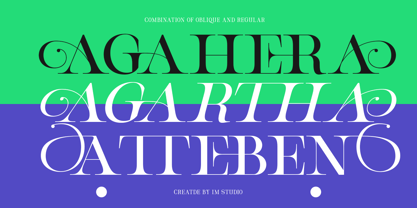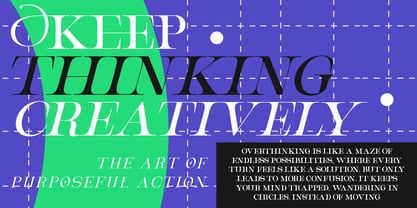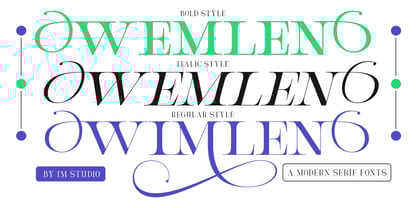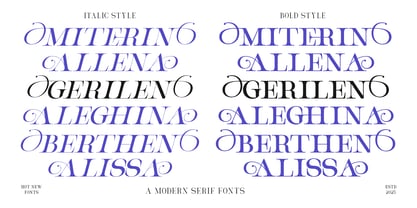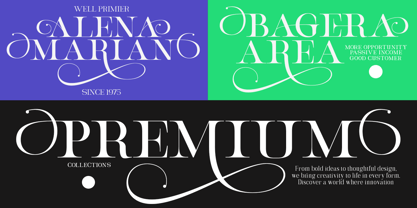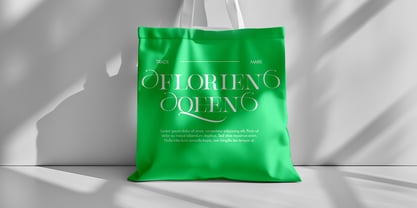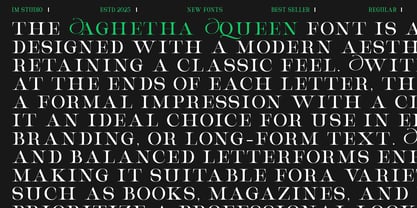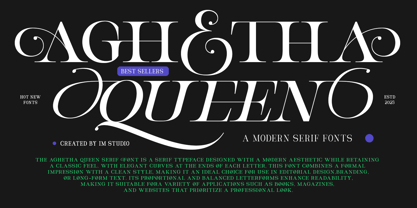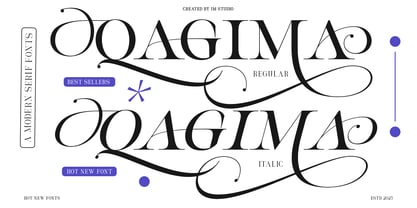
Aghetha Queen
by IM Studio
The Aghetha Queen Font Family was designed by Ikhsan Maulana and published by IM Studio. Aghetha Queen contains 3 styles and family package options. More about this family
Aghetha Queen is an elegant and charming typeface that combines classic beauty with a modern twist. Its design features gentle curves and graceful letterforms, creating a harmonious and captivating visual flow. I have enhanced Aghetha Queen with a variety of carefully designed ligatures and alternate characters, giving it even more ingenuity and creativity in its use. These features add an artistic and luxurious touch to any project, making it a perfect choice for branding, wedding invitations, and editorial layouts. With its timeless charm and perfect balance of modern and vintage details, Aghetha Queen is an ideal choice for those looking for a typeface with character and style.